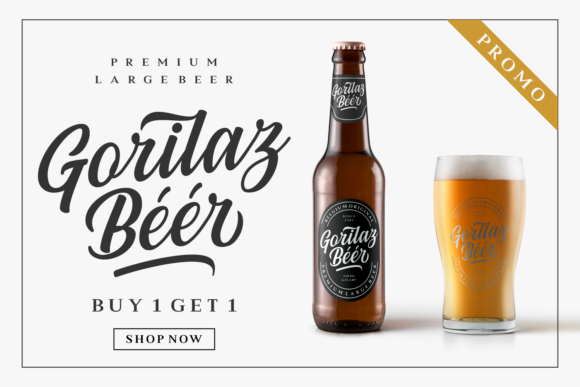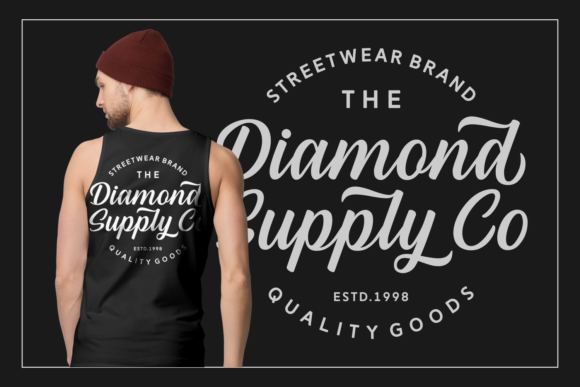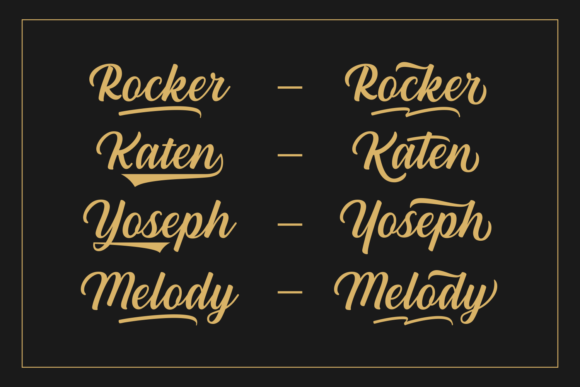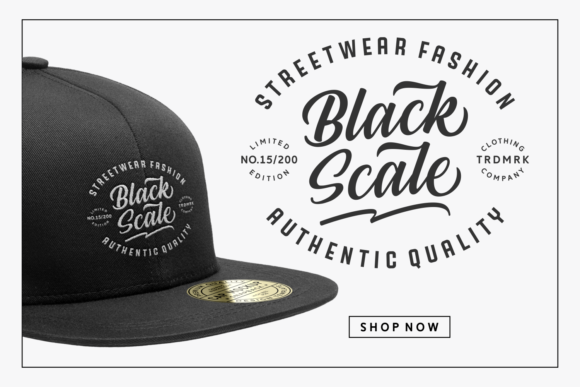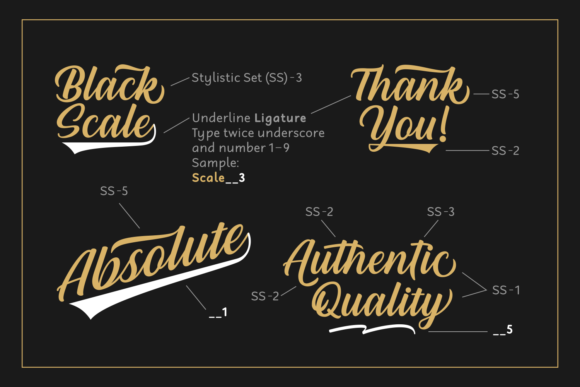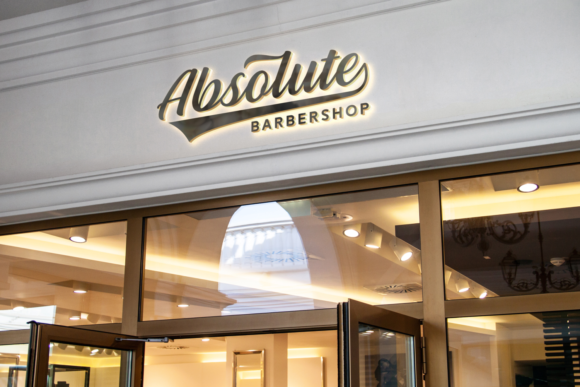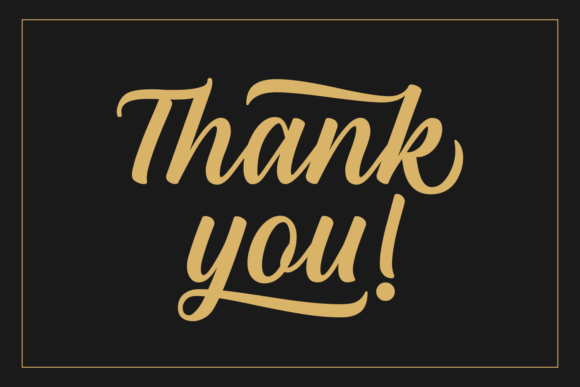
Hestina Font
Hestina is a stunning bold brush type, digitally perfected and smoothed all around.
The result is a font that pops on your screen. With adding Hestina to your projects, you will be ensure to make it stand out of the crowd and create eye-catching design. It comes packed with stunning swashes and alternates.